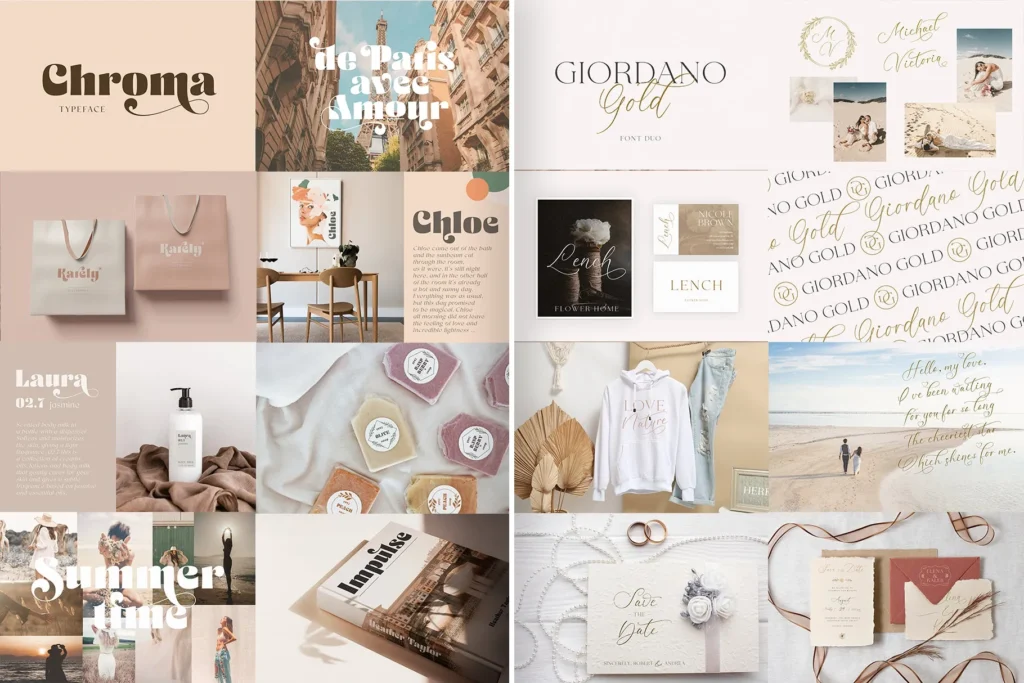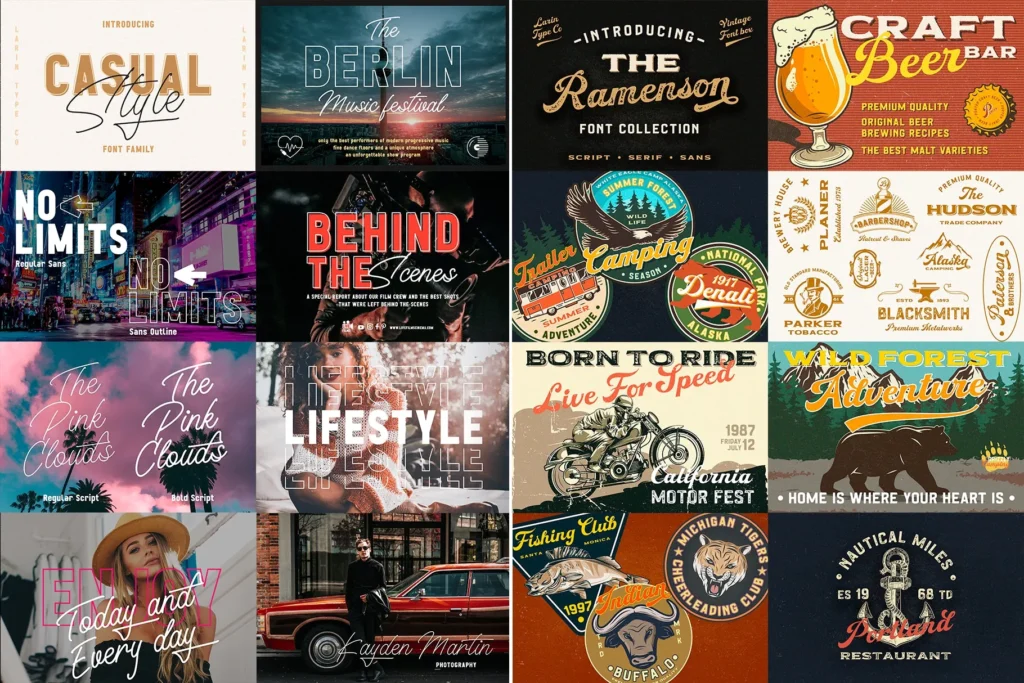
Introducing the new Modern Font Bundle Volume 2 from Larin Type Co.
It consists of 33 typefaces which includes 197 total fonts.
It includes a wide range of font styles to suit a wide variety of projects and tasks.
This bundle includes serif fonts, sans serif fonts, signature fonts, calligraphy fonts, display fonts, decorative fonts, layering fonts, fun fonts, vintage fonts, stencil fonts, brush fonts and more. All fonts have multilingual support and many fonts have alternates, ligatures, and swashes included.